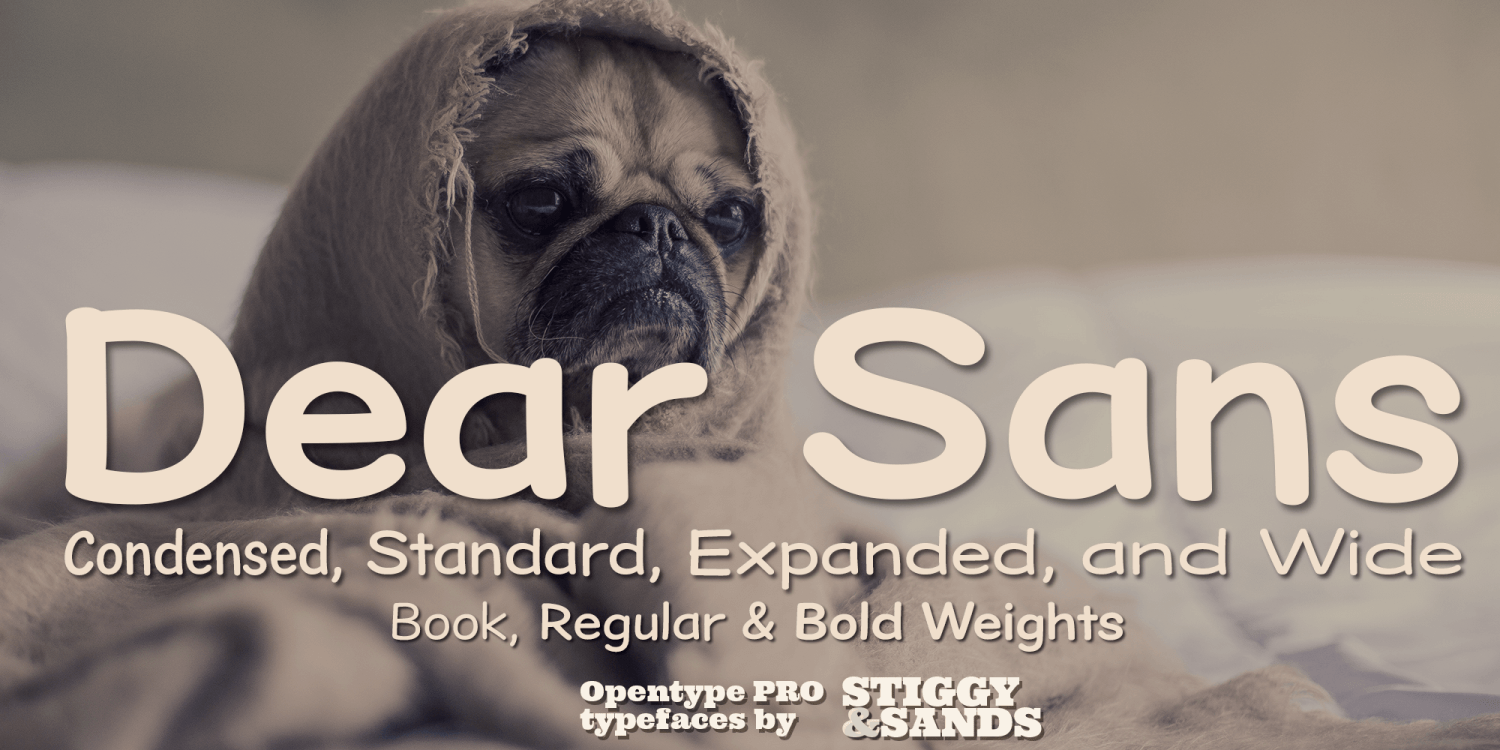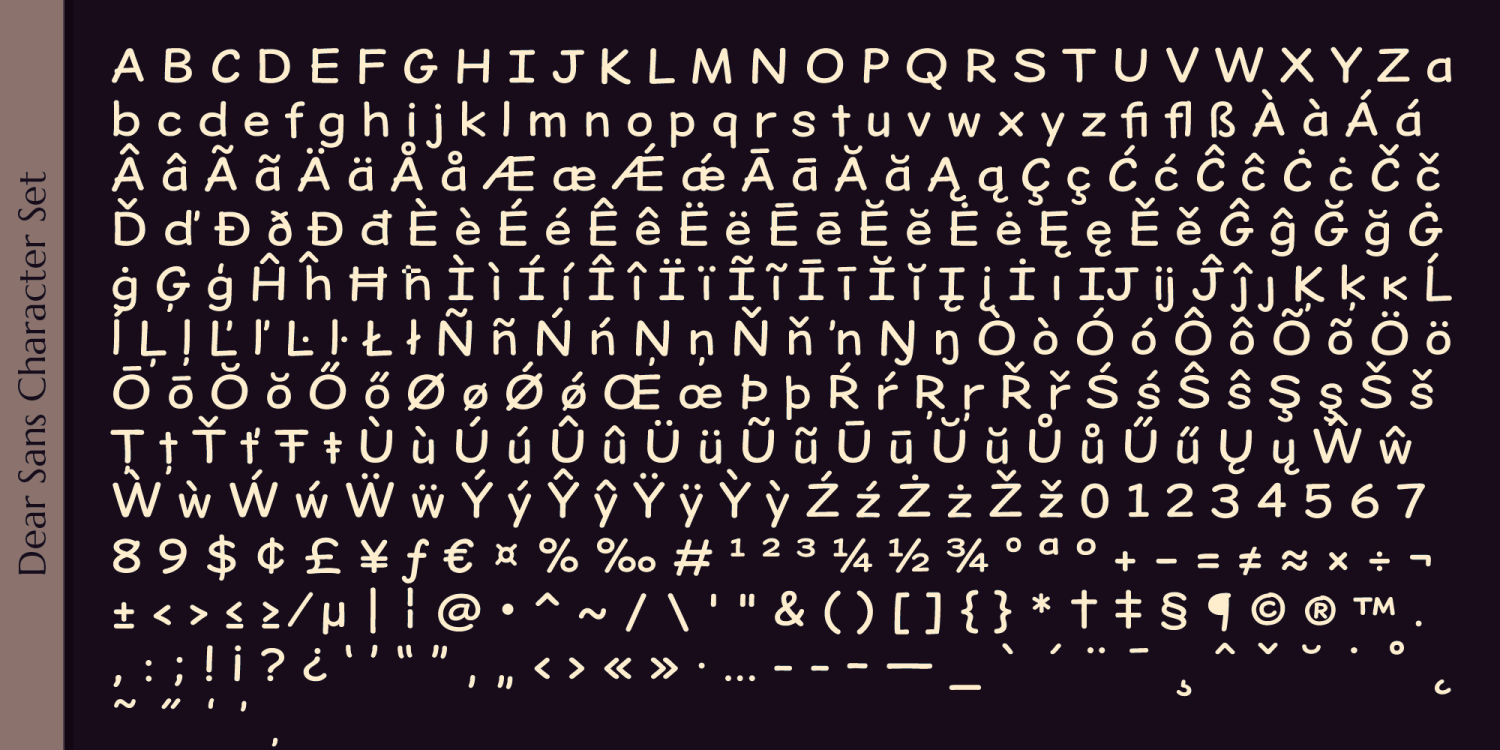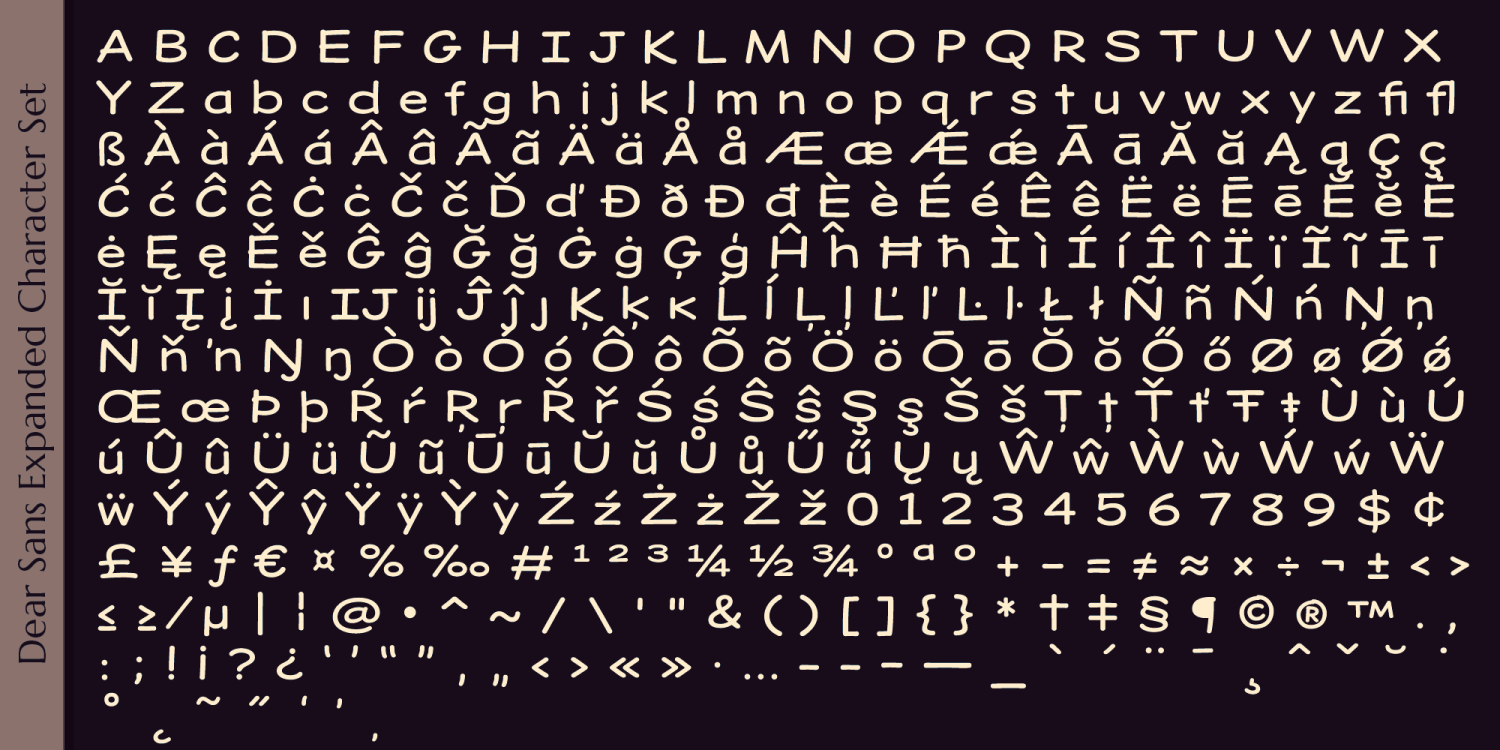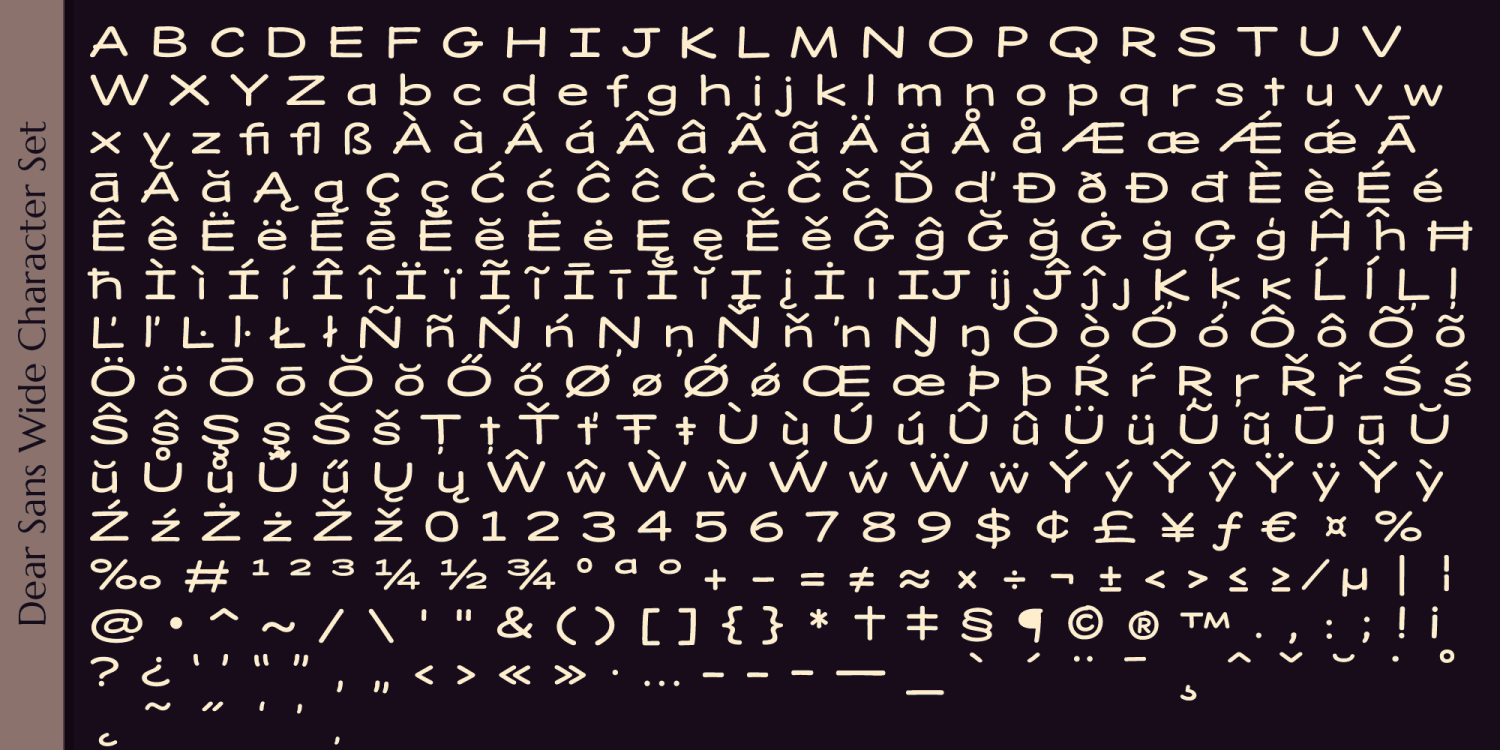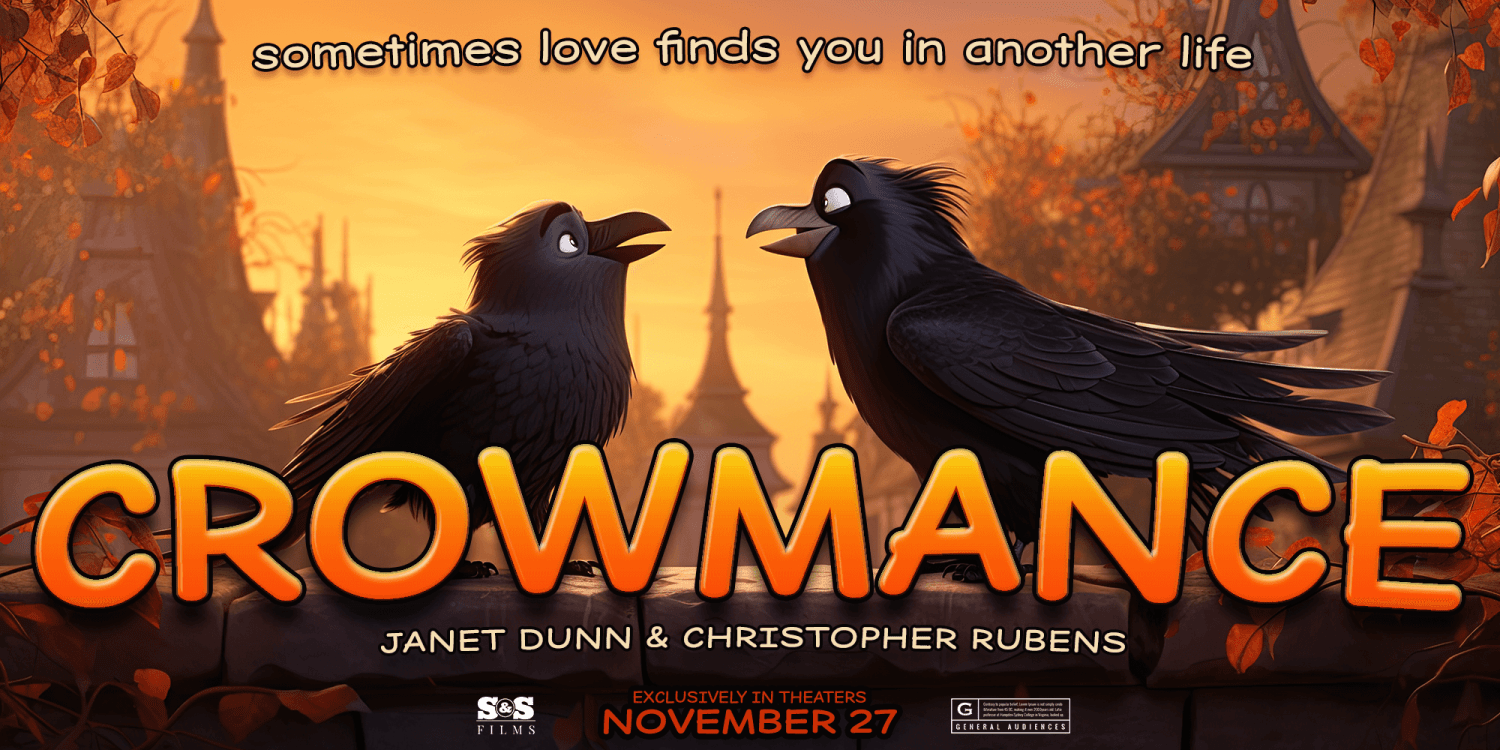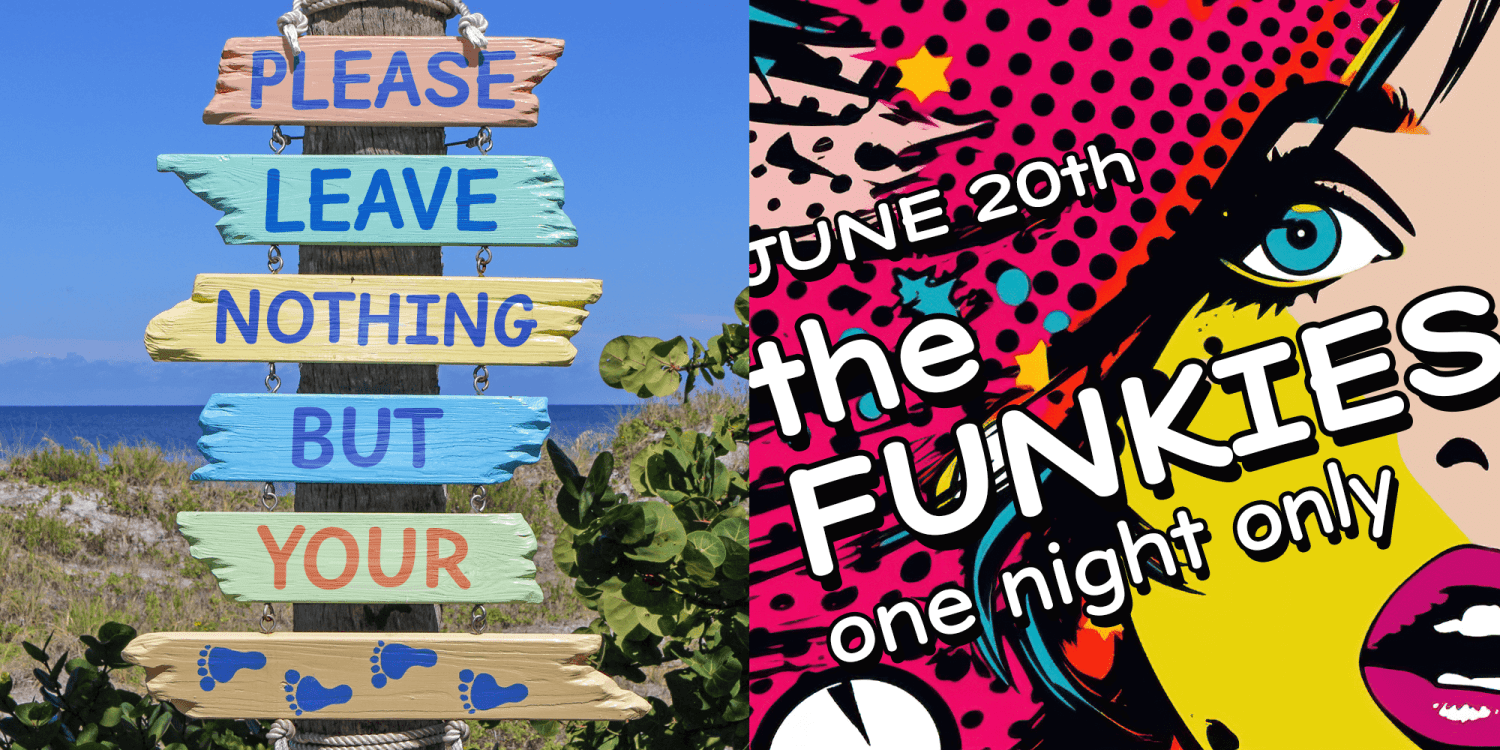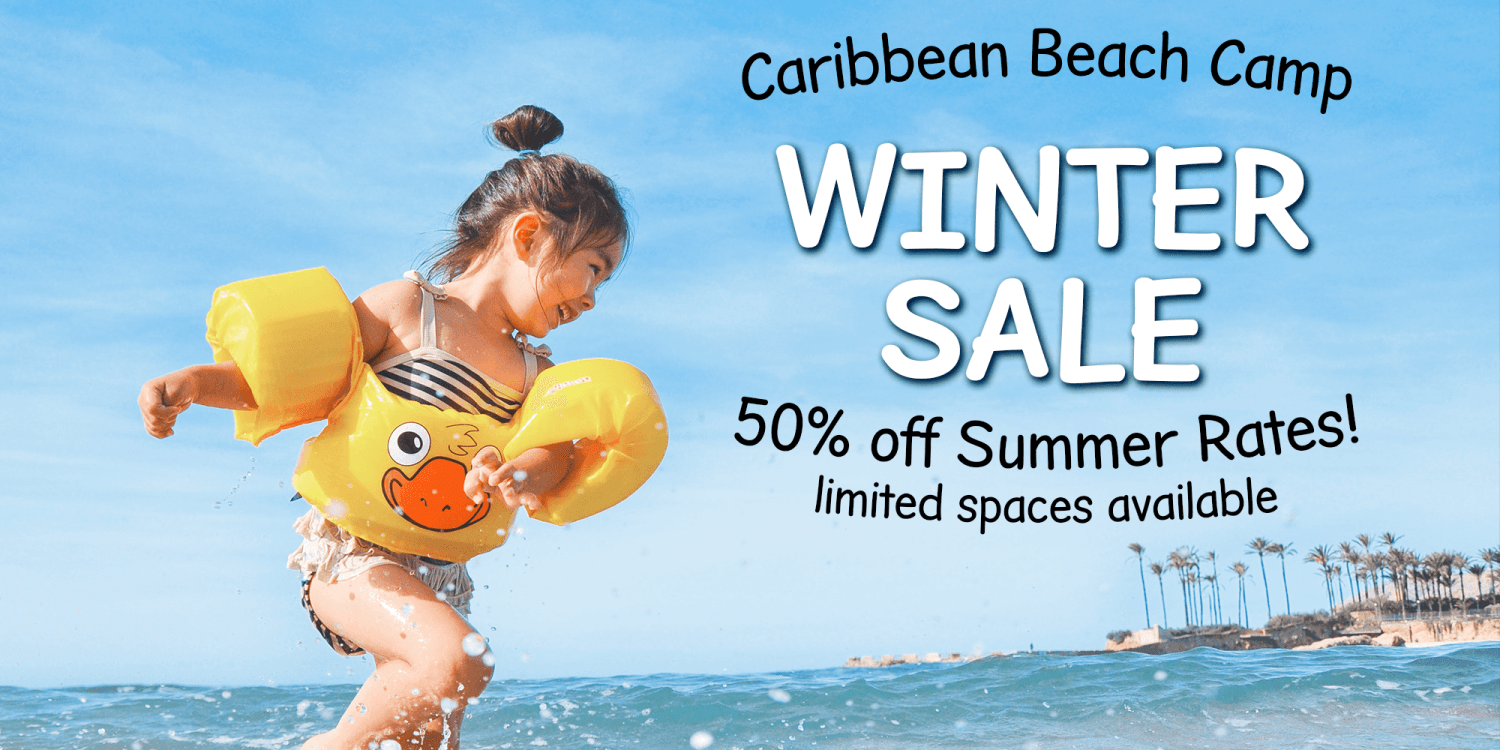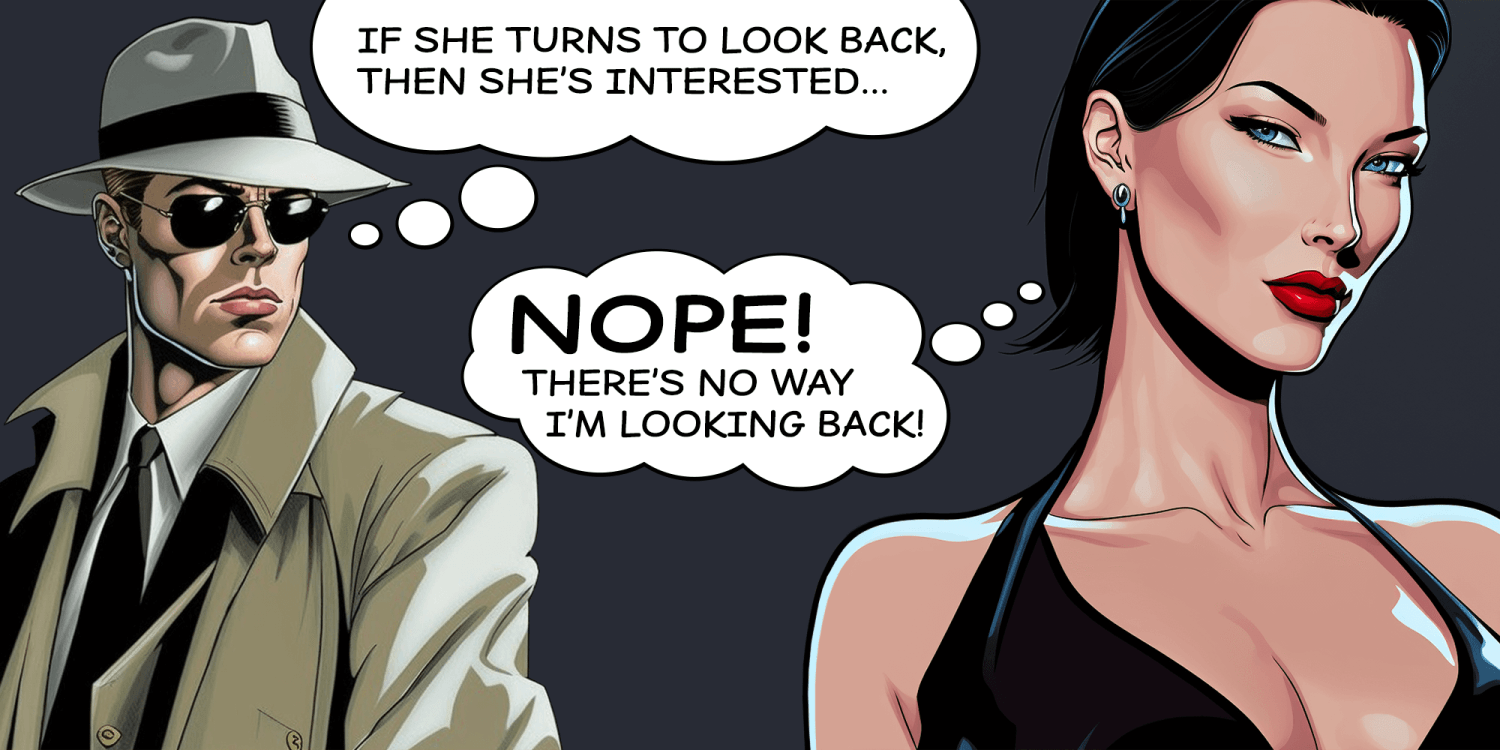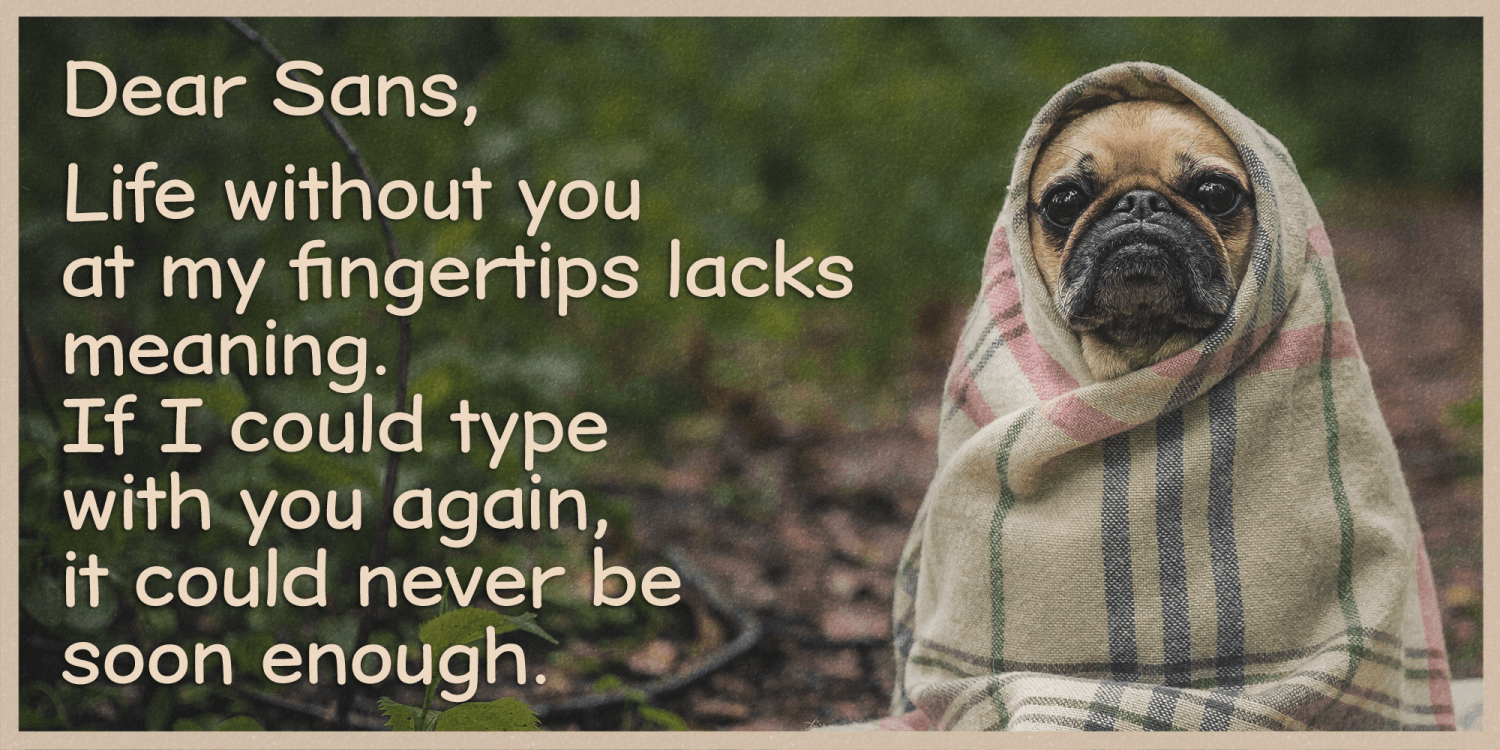
Dear Sans
The Dear Sans Family is a three font family of condensed weights: Book, Regular & Bold. This is the "Standard Width" family that spawned it all. Cleanly readable, with just a slight hint of silliness, Dear Sans brings adds the perfect level of lightheartedness to your designs. A Casual Handdrawn Sans with Spunk!
- Approx. 367 Character Glyph Set - including standard & punctuation, international language support, and basic "fi fl" ligatures per font.
- 3 Weights including: Book, Regular, and Bold.
- Loads of Personality for your designs.